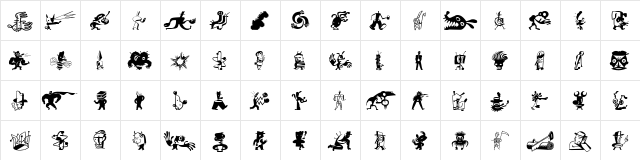
ZeitGuysOne Regular
Design Context for ZeitGuysOne Typeface
ZeitGuysOne is a composed and adaptable typeface that performs quietly and consistently across a wide range of design contexts.